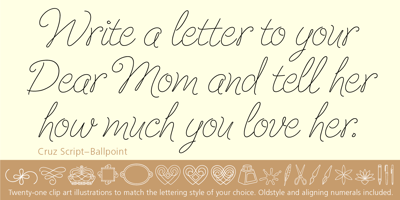
Cruz Script Ballpoint Pro
Cruz Script Ballpoint Pro font
Cruz Script Ballpoint Pro Font Family was designed by Ray Cruz and published by Cruz Fonts. Cruz Script Ballpoint Pro contains 1 styles and family package options. The three Script fonts: Brush Pro, Ballpoint Pro and Calligraphic Pro were derived from the original Ballpoint design. A custom Brush and Calligraphic texture was added to complete the family and twenty-two clip-art illustrations were created for each style. The 3-font package with illustrations is available in the Buying Choices of any of the three fonts.